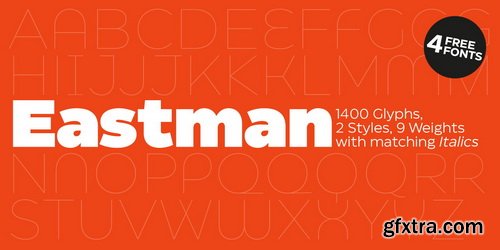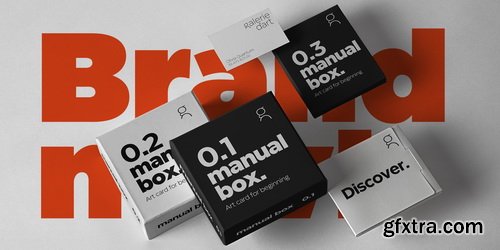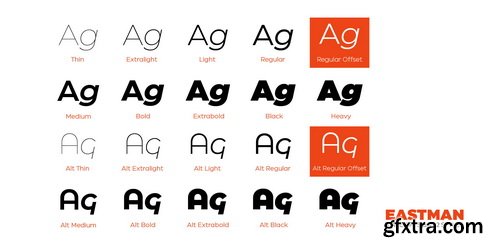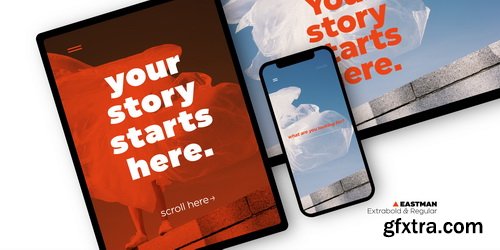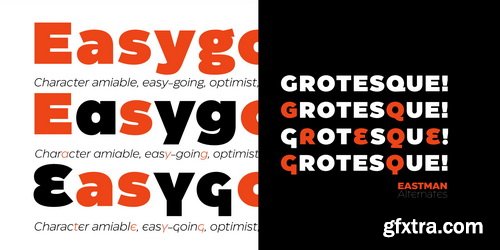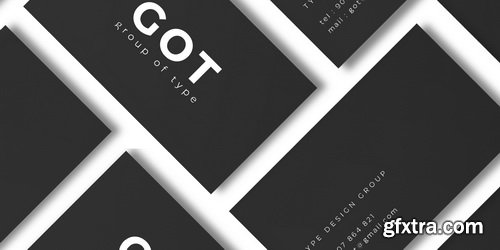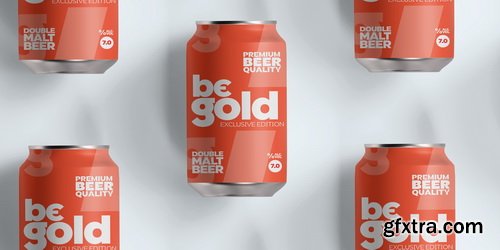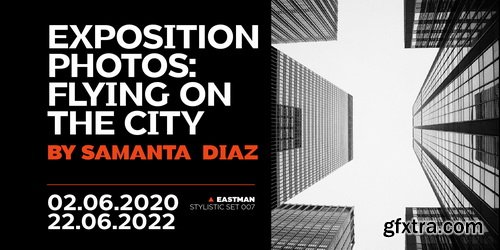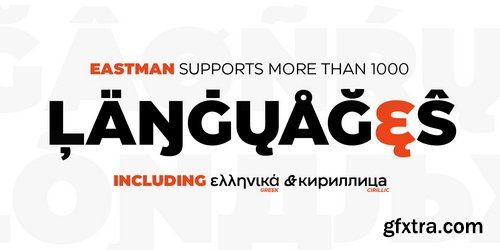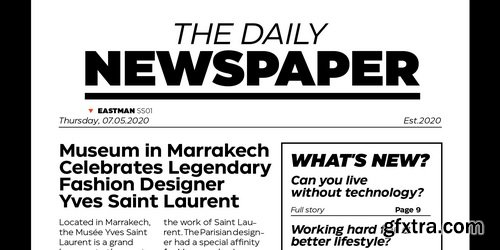
Eastman Font Family
Eastman was designed in 2020 for Zetafonts by Francesco Canovaro and Andrea Tartarelli with help from Solenn Bordeau. It is a geometric sans workhorse family developed for maximum versatility both in display and text use, with a wide weight range and a solid monolinear design featuring a tall x-height that makes Eastman extremely readable on paper and on the screen.An impressive array of alternate characters and stylistic sets allows to fine-tune your editorial and branding design by choosing unique, logo-ready variant letter shapes. The twenty weights of the base family have been complemented by a display-oriented alternate family, as well as one variable version, bringing the full family to an impressive count of 41 fonts. Eastman excels in both body text, headings and wordmarks and it is your new option for a universal geometric grotesque.